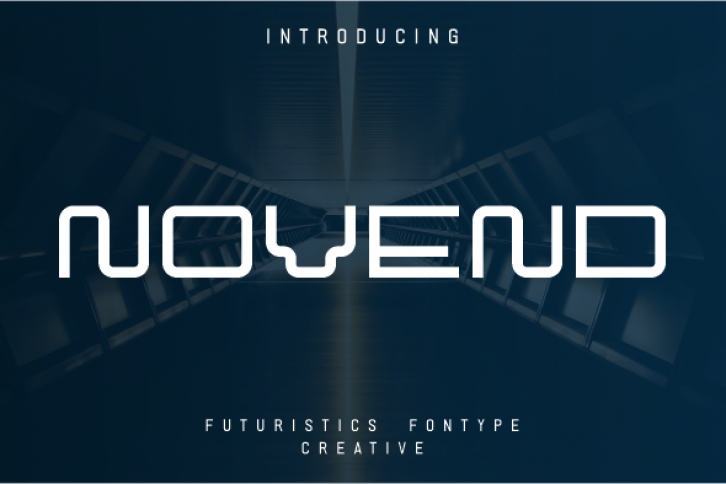
Novend is a modern and cool display font. This font would be ideal for writing web designs, business cards, or pretty much anything else that requires a unique touch.